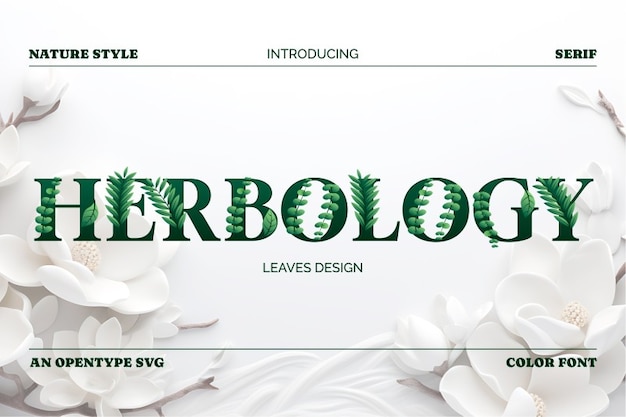
Herbology
Herbology Font
Herbology is a refined and nature-inspired typeface that captures the gentle beauty of the plant world. With elegant curves and leafy undertones, it brings a sense of calm and organic grace to any design. Perfect for wellness brands, botanical packaging, or anything rooted in natural sophistication and earthy charm.